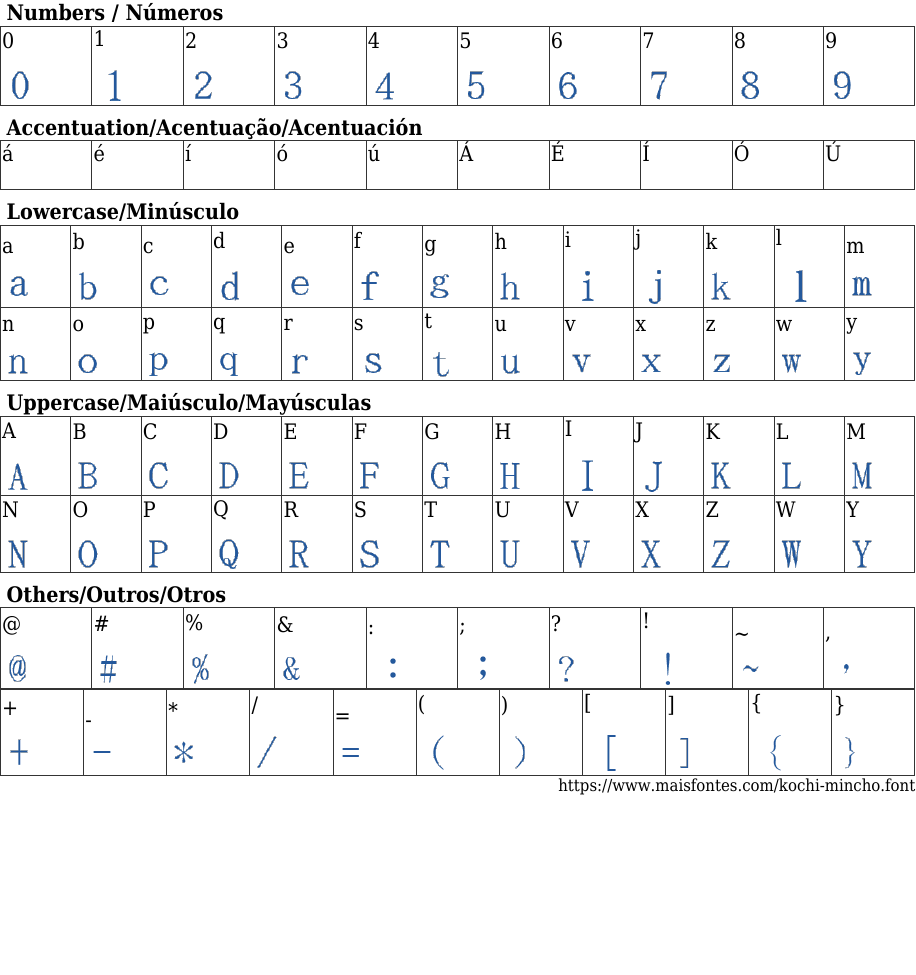
Kochi Mincho Font . Version 0.01 has 15,365 glyphs and no kerning pairs. Added on friday, november 14, 2008. 東風明朝 kochi mincho character map. Kochi (東風フォント) was a font development project to build free replacements of proprietary fonts such as ms gothic or ms mincho,. 22 rows this is a list of notable cjk fonts (computer fonts with a large range of chinese/japanese/korean characters). International unicode japanese asian thin foreign. 東風明朝 version 0.01 font (font family name: Click the download button to download. 標準), 14801 characters in total. Kochi mincho is the perfect font for all your fun designs. The font subfamily is regular.
The font subfamily is regular. Kochi (東風フォント) was a font development project to build free replacements of proprietary fonts such as ms gothic or ms mincho,. Added on friday, november 14, 2008. 東風明朝 version 0.01 font (font family name: 標準), 14801 characters in total. 東風明朝 kochi mincho character map. Kochi mincho is the perfect font for all your fun designs. International unicode japanese asian thin foreign. Version 0.01 has 15,365 glyphs and no kerning pairs. Click the download button to download.
Kochi Mincho Font International unicode japanese asian thin foreign. The font subfamily is regular. Kochi mincho is the perfect font for all your fun designs. Click the download button to download. Version 0.01 has 15,365 glyphs and no kerning pairs. Kochi (東風フォント) was a font development project to build free replacements of proprietary fonts such as ms gothic or ms mincho,. 東風明朝 kochi mincho character map. International unicode japanese asian thin foreign. 22 rows this is a list of notable cjk fonts (computer fonts with a large range of chinese/japanese/korean characters). 東風明朝 version 0.01 font (font family name: Added on friday, november 14, 2008. 標準), 14801 characters in total.
MS Mincho free Font What Font Is Kochi Mincho Font Kochi mincho is the perfect font for all your fun designs. International unicode japanese asian thin foreign. 標準), 14801 characters in total. 東風明朝 kochi mincho character map. Added on friday, november 14, 2008. Version 0.01 has 15,365 glyphs and no kerning pairs. 東風明朝 version 0.01 font (font family name: Kochi (東風フォント) was a font development project to build free replacements. Kochi Mincho Font.
Romaji Mincho Font · 1001 Fonts Kochi Mincho Font Kochi mincho is the perfect font for all your fun designs. International unicode japanese asian thin foreign. Kochi (東風フォント) was a font development project to build free replacements of proprietary fonts such as ms gothic or ms mincho,. 東風明朝 version 0.01 font (font family name: 標準), 14801 characters in total. 東風明朝 kochi mincho character map. The font subfamily is regular.. Kochi Mincho Font.
Download free Kochi Mincho Regular font kochiminchosubst.ttf Kochi Mincho Font 標準), 14801 characters in total. Click the download button to download. Kochi (東風フォント) was a font development project to build free replacements of proprietary fonts such as ms gothic or ms mincho,. Added on friday, november 14, 2008. 東風明朝 kochi mincho character map. Version 0.01 has 15,365 glyphs and no kerning pairs. 東風明朝 version 0.01 font (font family name: 22. Kochi Mincho Font.
Fontspring Kozuka Mincho® Pr6N Fonts by Adobe Kochi Mincho Font 東風明朝 version 0.01 font (font family name: 標準), 14801 characters in total. Kochi mincho is the perfect font for all your fun designs. Added on friday, november 14, 2008. Version 0.01 has 15,365 glyphs and no kerning pairs. Click the download button to download. International unicode japanese asian thin foreign. 22 rows this is a list of notable cjk fonts. Kochi Mincho Font.